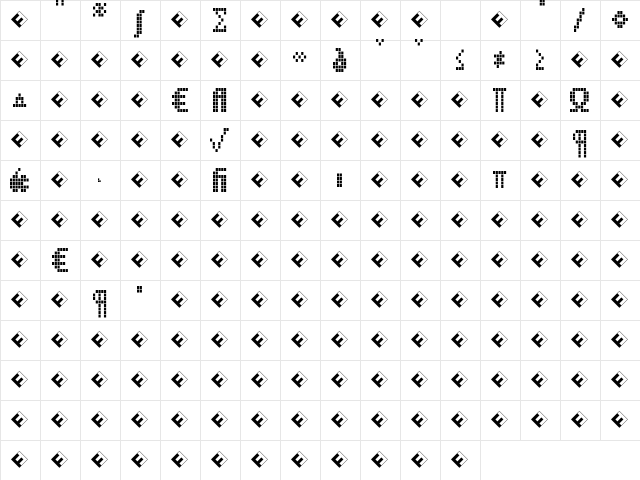
CallFiveS-RegularExp Regular
Design Context for CallFiveS-RegularExp Typeface
CallFiveS-RegularExp is a composed and adaptable typeface that performs quietly and consistently across a wide range of design contexts.